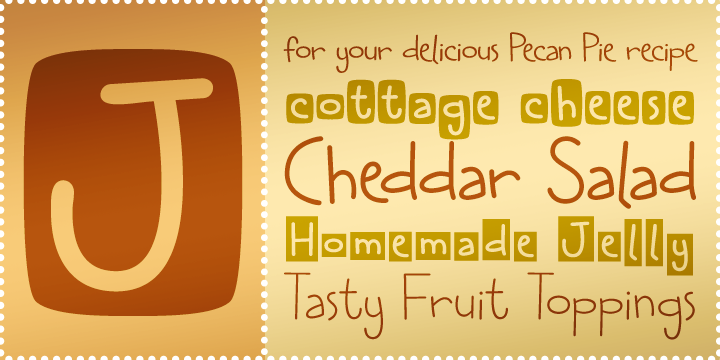
Cheddar Salad is a scrapper’s dream. This playful typeface is ideal for both journaling and lettering for all your scrapbook layouts.
With its relaxed and playful homemade look, this font is perfect on everything from recipe cards to gift tags.